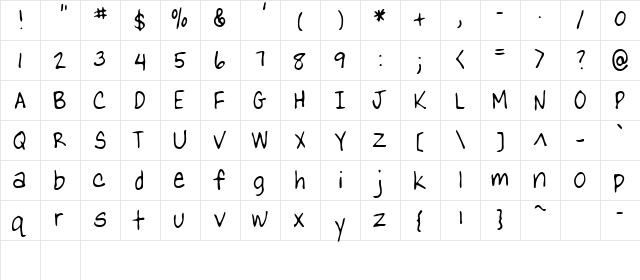
Lizard Regular
Design Context for Lizard Typeface
Lizard takes a measured approach to typography — its balanced proportions and neutral character make it a reliable workhorse for both digital and print work.